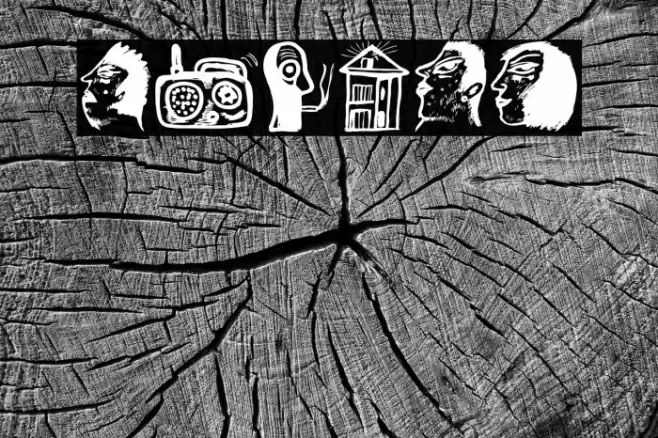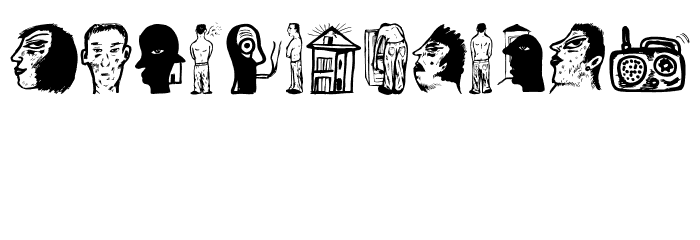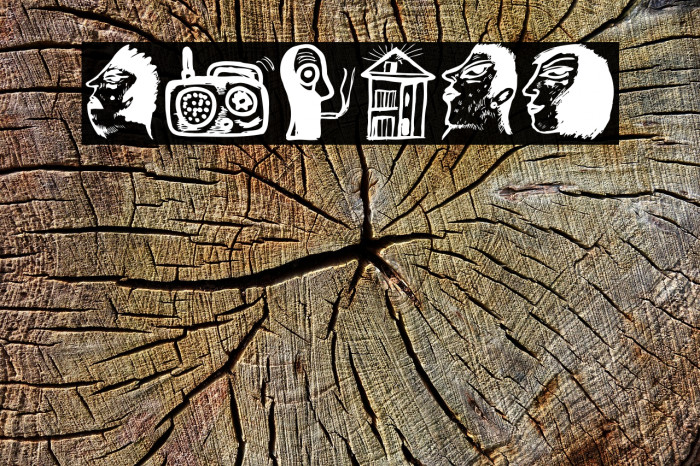
Tsim Regular Font
Tsim Regular Description
A highly decorative and illustrative font composed of hand-drawn, expressive human faces, figures, and objects, each glyph resembling a unique sketch or artwork rather than a traditional letterform.
An artistic, hand-drawn pictorial font with expressive illustrations from Dingbats fonts.
- Proposed Projects: Art posters, album covers, experimental zines, creative branding, event flyers, visual poetry.
- Overall Style: Decorative, Artistic, Hand-drawn
- Use Case: Logos, Posters, Display titles, Art projects